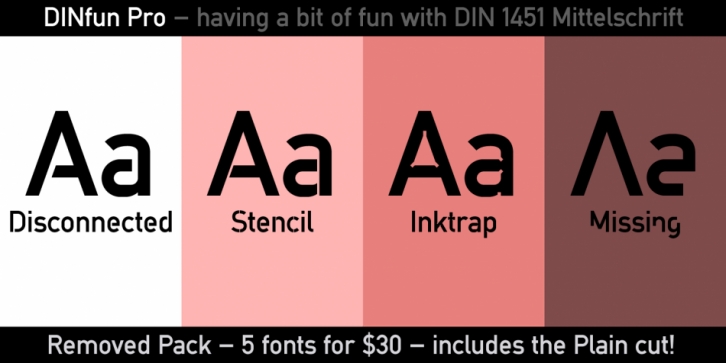
DINfun Pro Removed is a multiple classification font family. This typeface has five styles and was published by CheapProFonts.
A collection of DIN Mittelschrift variants where parts of the letters have been removed to create different effects. The Plain font is included if you buy the family pack, and can be mixed in.
The DINfun Pro fonts are special versions of the classic DIN 1451 Mittelschrift, far removed from the original typeface’s serious and no-nonsense roots. I have made them as companions to the classic, with some some very different expressions, complete with a large multilingual character set. Time to spice up that DIN profile! :)
DINfun Pro Disconnected·
DINfun Pro Stencil·
DINfun Pro Inktrap·
DINfun Pro Missing·